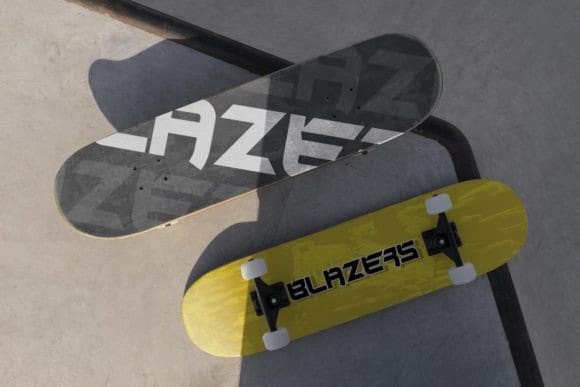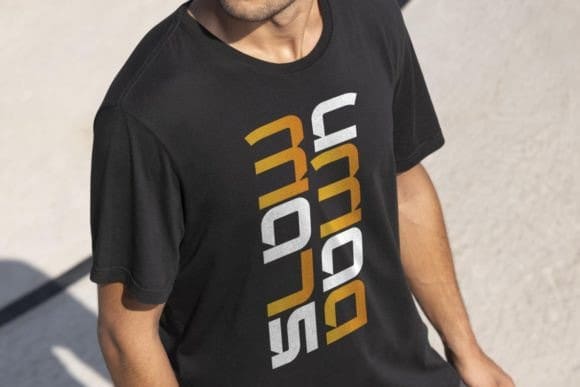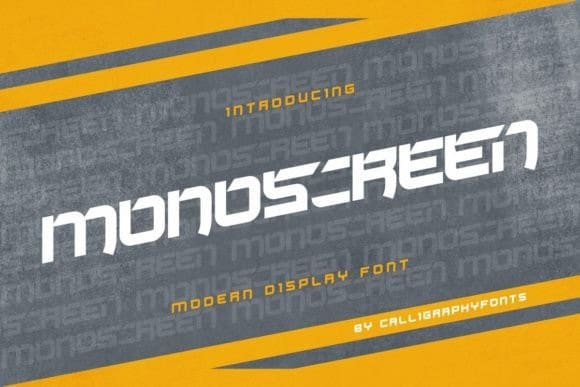
Monoscreen Display Font
Monoscreen Display Font is a modern, sporty display font. Add it confidently to your creative projects and you will be amazed by the outcome generated! This font is PUA encoded which means you can access all the glyphs and ligatures with ease!